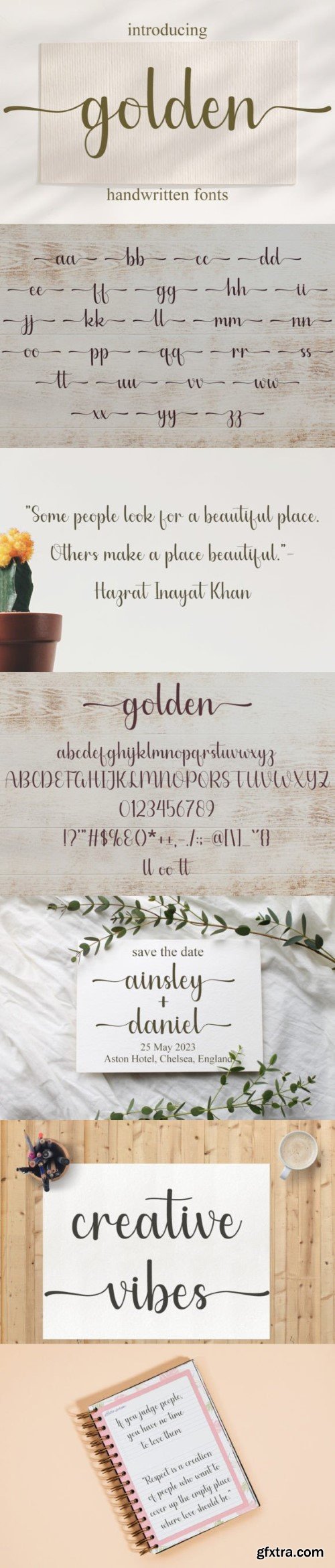
金色字体
Introducing Golden, a finely crafted handwritten font that exudes elegance and delicacy. Tailor-made for diverse design requirements, Golden effortlessly infuses sophistication into social media posts, breathes life into logos, and adds an intimate touch to wedding invitations. Its versatility also shines in branding, advertising, business card design, and product design. Adding to its appeal is the PUA encoding, allowing effortless access to an array of glyphs and alternates. Immerse in the exceptional charm of Golden, where beauty meets function, and design takes on a whole new level of brilliance.